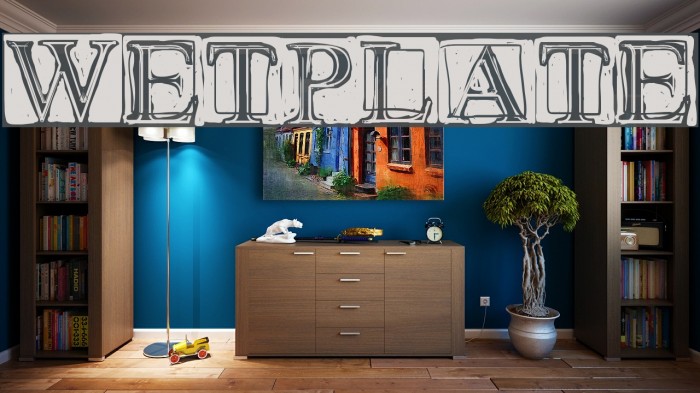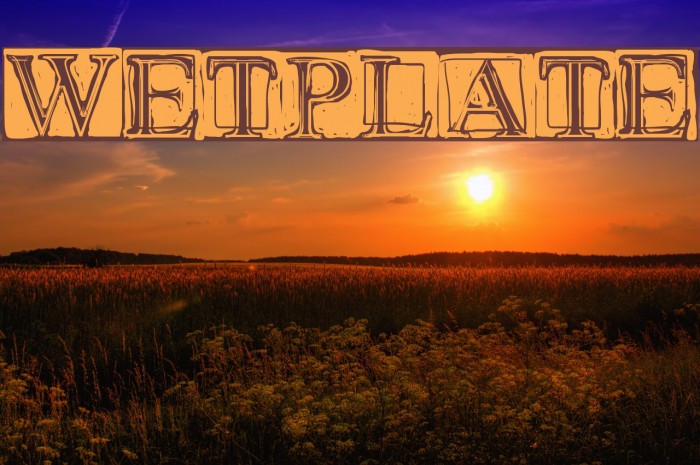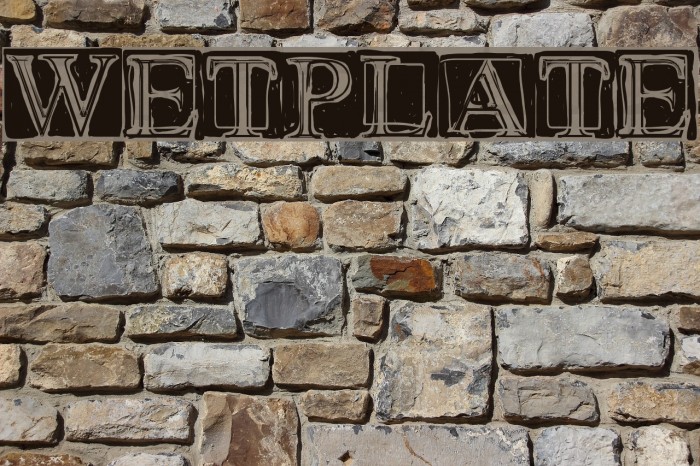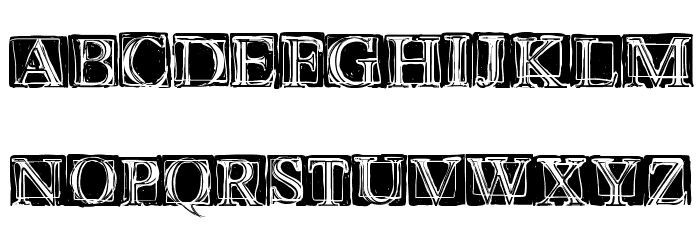
Wet Plate Font
Wet Plate Description
This font features a bold and decorative style with a vintage flair. Each character is enclosed in a rectangular block, giving it a distinct and striking appearance. The letters are uppercase, with intricate detailing that resembles the texture of wet plate photography, adding a unique artistic touch. The font's high contrast between the thick strokes and the thin, intricate lines within each letter creates a visually captivating effect. This style is reminiscent of early 20th-century typography, making it ideal for projects that require a historical or artistic aesthetic.
A bold, decorative font with a vintage, wet plate photography-inspired style from Decorative fonts.
- Overall Style: Vintage